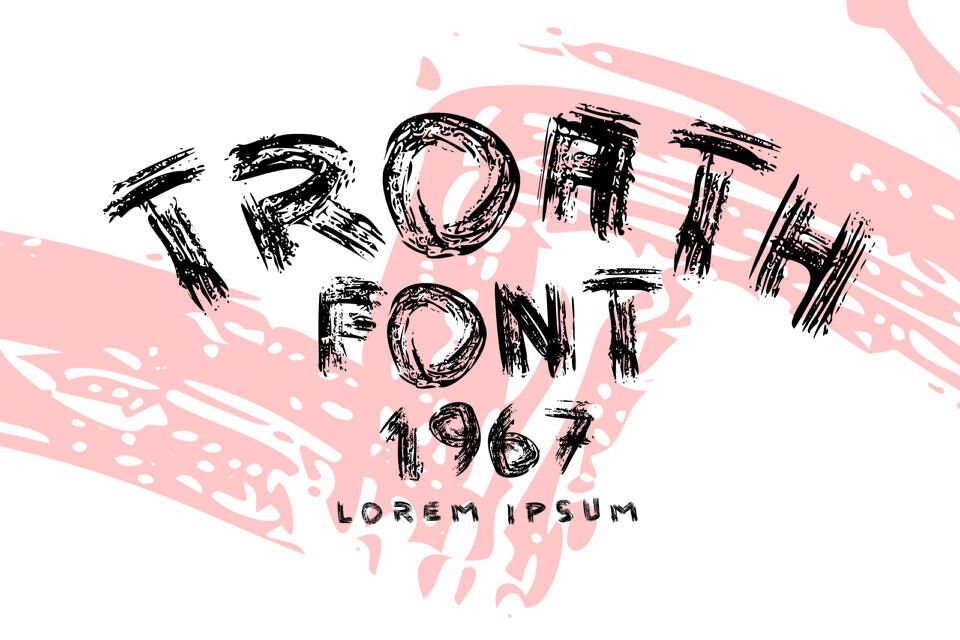
Vtks Troath is a striking display typeface created by VTKS Design. Embracing a raw, aggressive aesthetic, this font captures a heavy punk and metal energy. Its distressed, jagged edges and chaotic, scratchy letterforms give it an authentic, handwritten grunge look. It is perfect for high-impact branding, rock band merchandise, horror themes, and edgy poster designs.